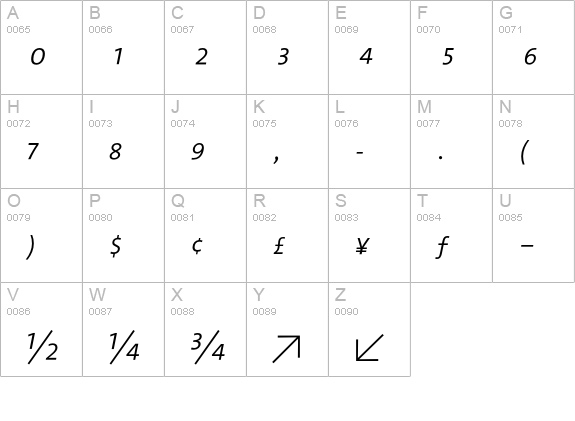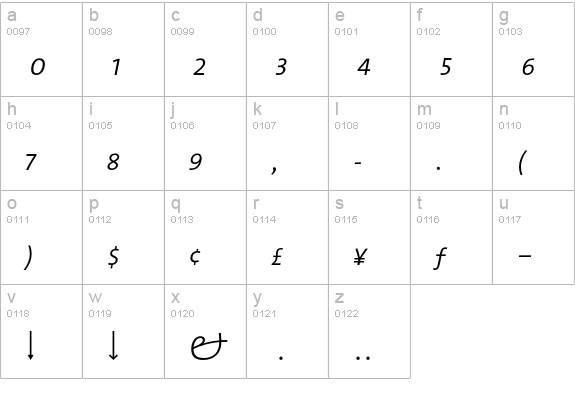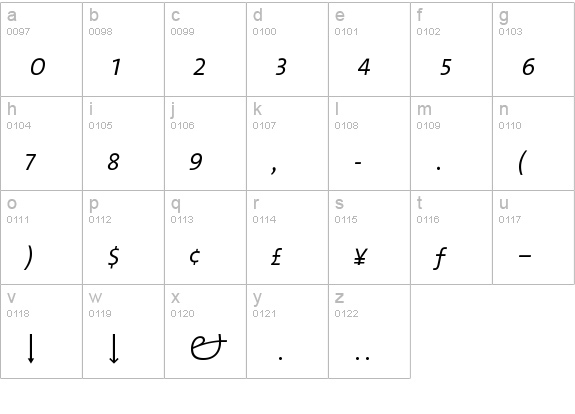
TheSansExtraLight Expert Italic Font Details
TheSansExtraLight Expert Italic is a distinctive, italic variant in the TheSansExtraLight typeface family \xE2\x80\x94 well suited to design and typography projects.
TheSansExtraLight Expert Italic font is an exquisite and sophisticated typeface that exudes elegance and grace. Its expertly crafted design showcases a delicate balance between thin strokes and gentle curves, resulting in a font that is both refined and visually appealing. With its slender and refined appearance, TheSansExtraLight Expert Italic font is perfect for adding a touch of sophistication to any project. Whether used in print or digital media, this font effortlessly conveys a sense of professionalism and style. One of the standout features of TheSansExtraLight Expert Italic font is its versatility. It can be used for a wide range of applications, including logos, headings, body text, and more. Its italicized form adds a touch of flair and adds emphasis to any text it is applied to. TheSansExtraLight Expert Italic font is not only visually stunning but also highly legible. Its clear and well-defined letterforms ensure that every character is easily distinguishable, even at small sizes. This makes it an ideal choice for projects where readability is crucial. What sets TheSansExtraLight Expert Italic font apart is its availability as a free download. FontsMarket.com offers this font freely, allowing designers and enthusiasts to access and utilize its beauty without any cost. This makes it a valuable asset for both personal and commercial projects, as it eliminates any budget constraints while still delivering exceptional quality. In conclusion, TheSansExtraLight Expert Italic font is a striking and versatile typeface that effortlessly combines elegance with readability. With its free availability at FontsMarket.com, it is a font that designers and creatives should not overlook. Whether used in branding, advertising, or any other creative endeavor, this font is sure to make a lasting impression.